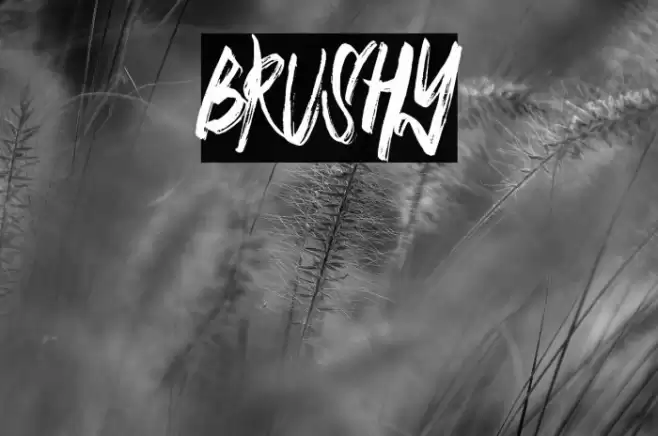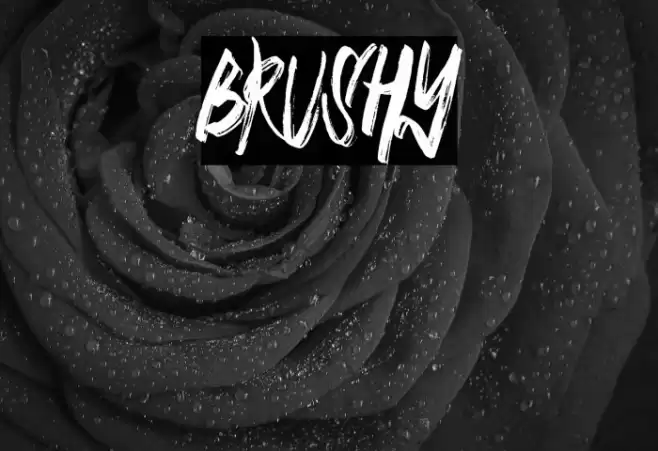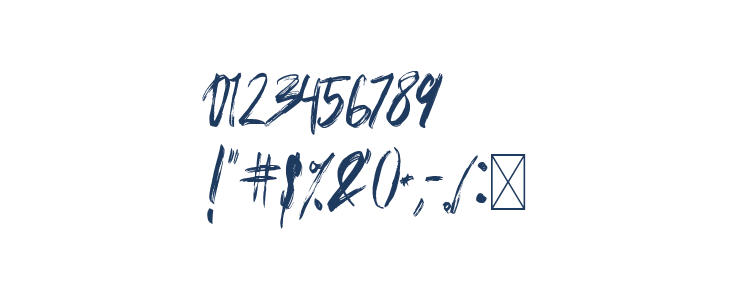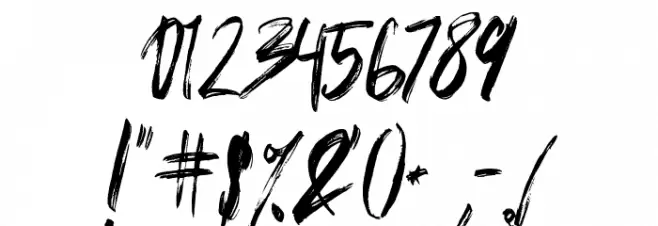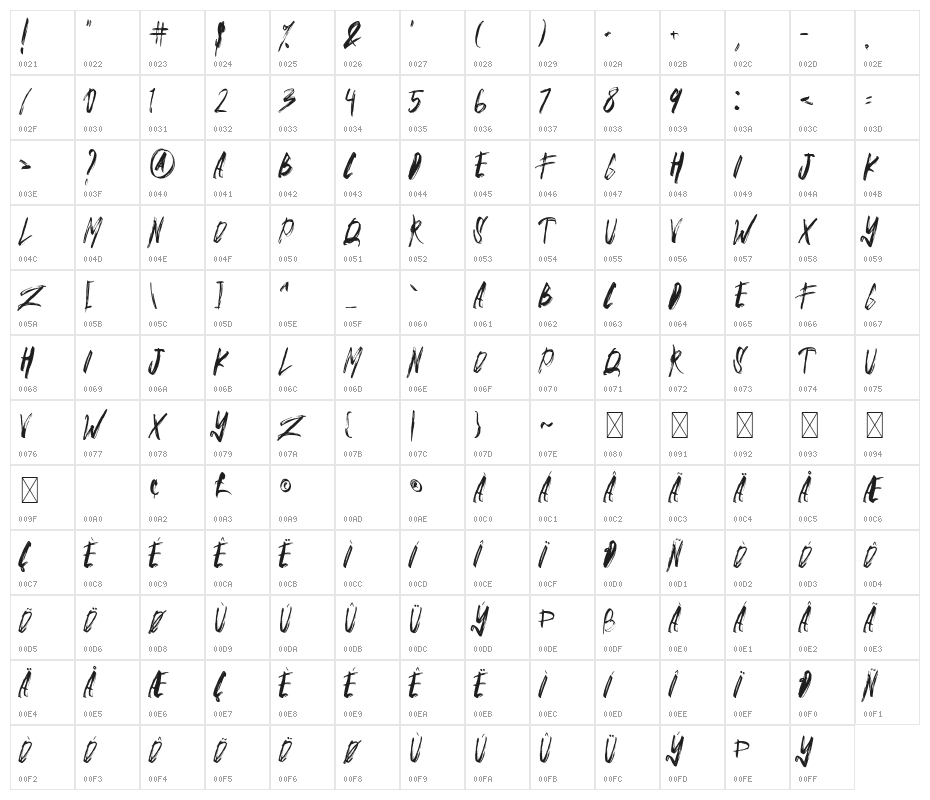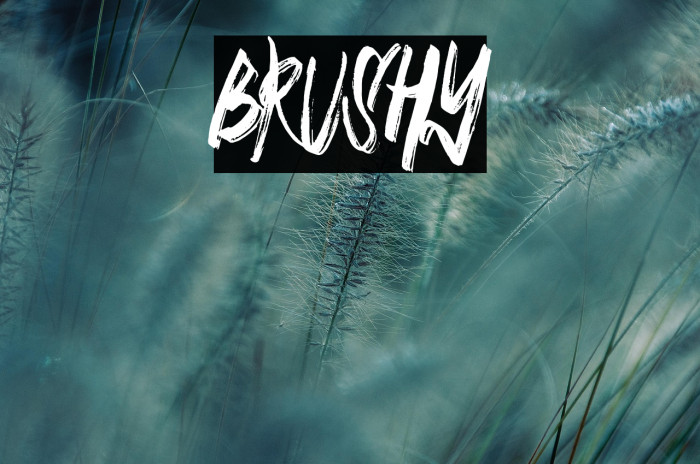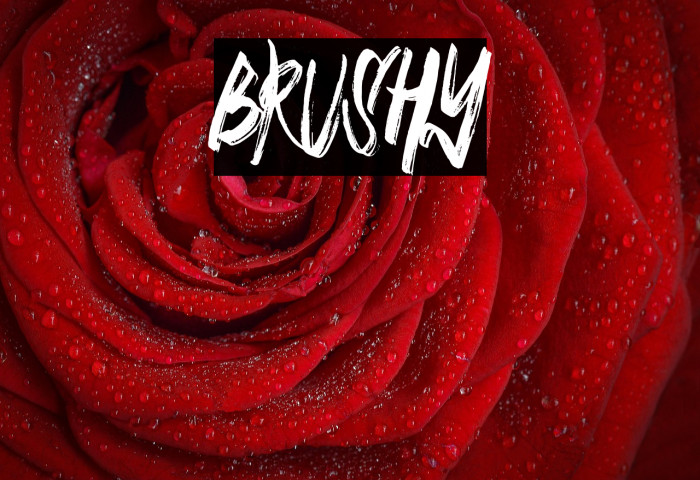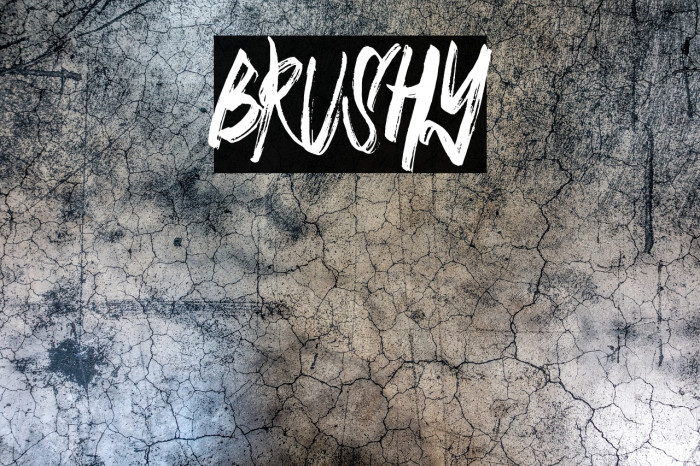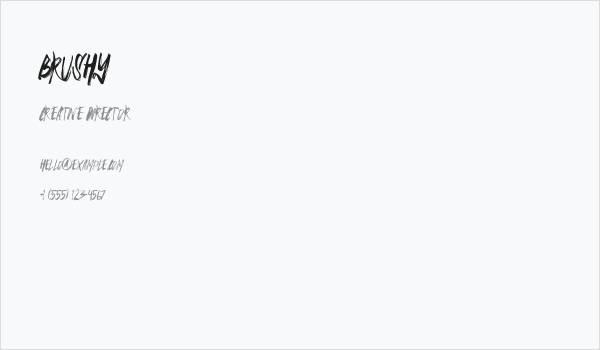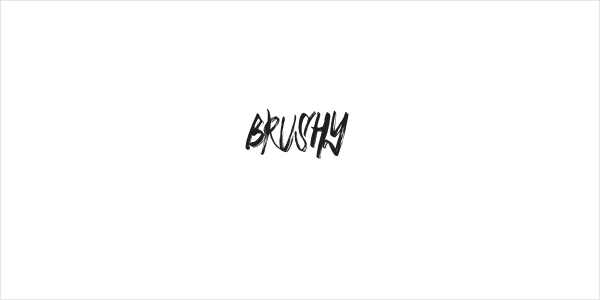
BRUSHY Font
This font exudes an energetic and dynamic feel, characterized by its bold, brush-like strokes that convey a sense of movement and spontaneity. The letters are crafted with a rough, textured appearance, reminiscent of hand-painted signage. Each character varies slightly in width and angle, adding to the font's organic and lively nature. The uppercase and lowercase letters maintain a consistent style, with exaggerated curves and sharp edges that enhance its expressive quality. Numbers and special characters follow the same artistic approach, ensuring a cohesive look across all text elements.
A bold, brush-style font with dynamic, textured strokes from Regular fonts.
- Proposed Projects: Ideal for creative projects such as posters, album covers, branding for artistic ventures, and any design requiring a bold, expressive touch.